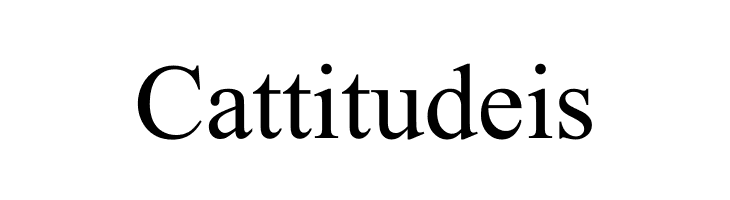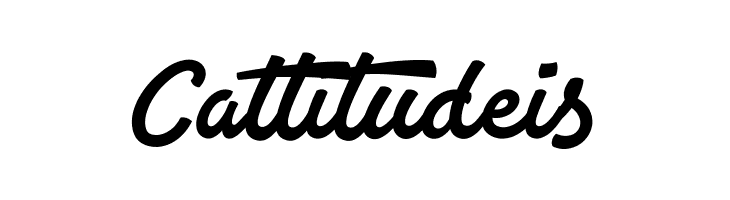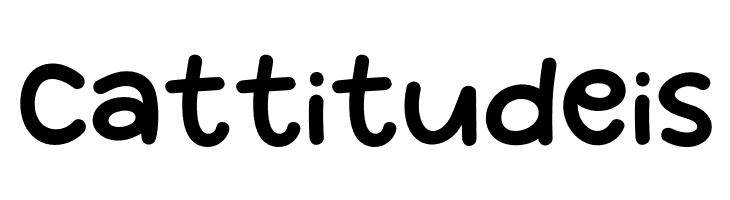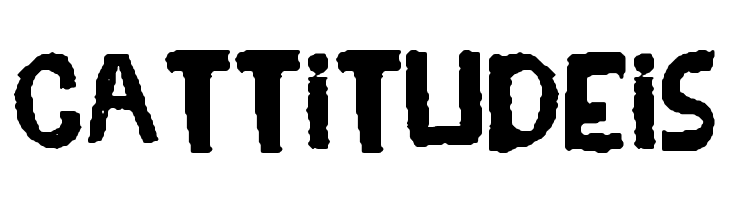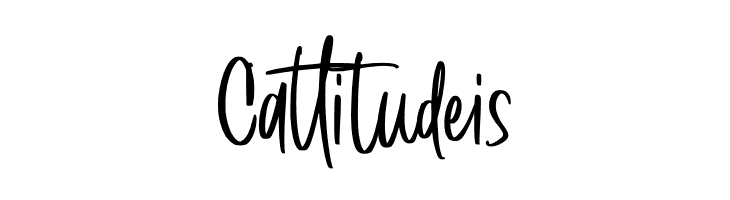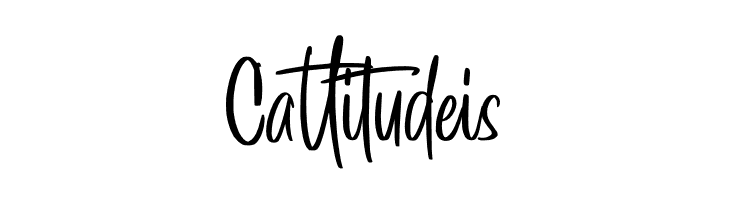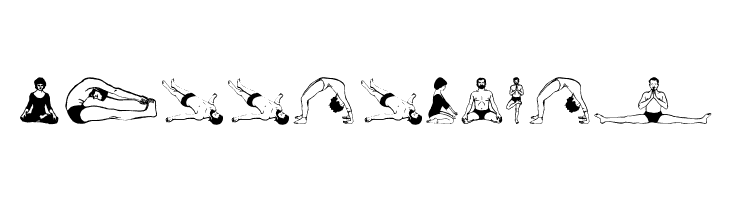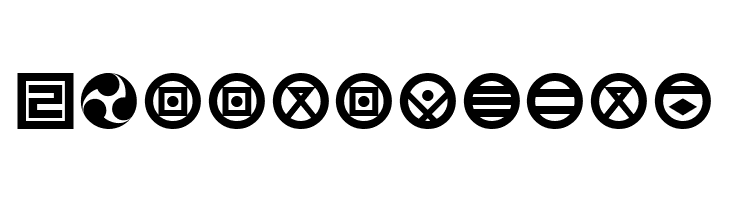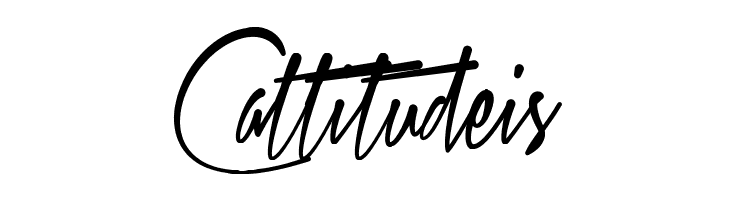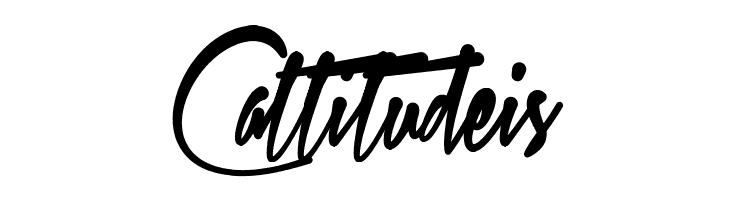
A modern, geometric font with a futuristic and uniform design.
An abstract, fragmented font with a modern, artistic style.
An abstract, hand-drawn font with geometric and calligraphic influences.
A dynamic script font with a fluid, handwritten style.
A dynamic, handwritten script font with bold, expressive strokes.
A bold, handwritten font with dynamic and energetic strokes.
A dynamic, expressive handwritten font with fluid strokes and lively characters.
A dynamic handwritten font with elongated, slanted characters.
A dynamic, handwritten-style font with elongated, slanted characters and thin strokes.
A dynamic, thin-stroked font with elegant, expressive forms.
Abstract geometric symbol font with bold, enclosed shapes.
A classic serif typeface with elegant strokes and balanced proportions.
A bold, high-contrast font with elegant curves and dramatic strokes.
A bold, fluid script font with elegant cursive letters and dynamic strokes.
A playful, hand-drawn font with bold, rounded characters.
A bold, hand-drawn font with a playful and textured appearance.
A playful, hand-drawn font with bold, irregular strokes and a whimsical style.
A bold, 3D font with a playful, hand-drawn style and shadow effects.
A bold, 3D italic font with a modern and dynamic style.
A bold, 3D rotated font with a playful and dynamic style.
A playful 3D font with a hand-drawn, sketch-like style.
A bold, italic font with a brush-like texture and dynamic style.
A playful, bold outline font with a hand-drawn, casual style.
A bold, italic outline font with a modern and dynamic style.
A playful, hand-drawn outline font with quirky, rotated characters.
A playful, hand-drawn outline font with a quirky and informal style.
A bold, abstract font with a graffiti-like, chaotic style.
A playful, hand-drawn font with irregular and dynamic letterforms.
A playful, handwritten font with tall, narrow letters and a dynamic style.
A playful, handwritten font with a casual and energetic style.
A display font made from yoga pose illustrations forming each character.
An artistic, calligraphic font with flowing strokes and elegant curves.
A playful, rounded handwritten font with a friendly and casual style.